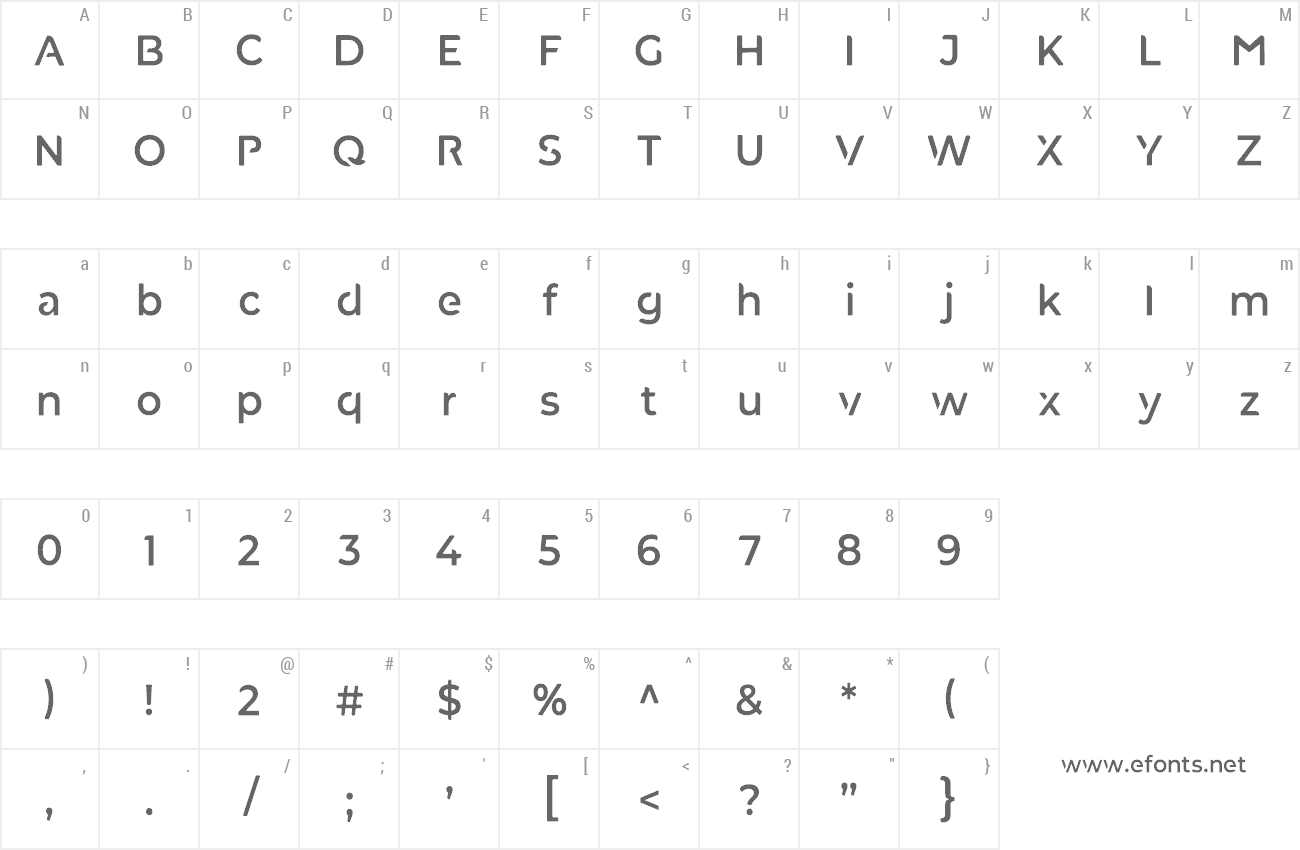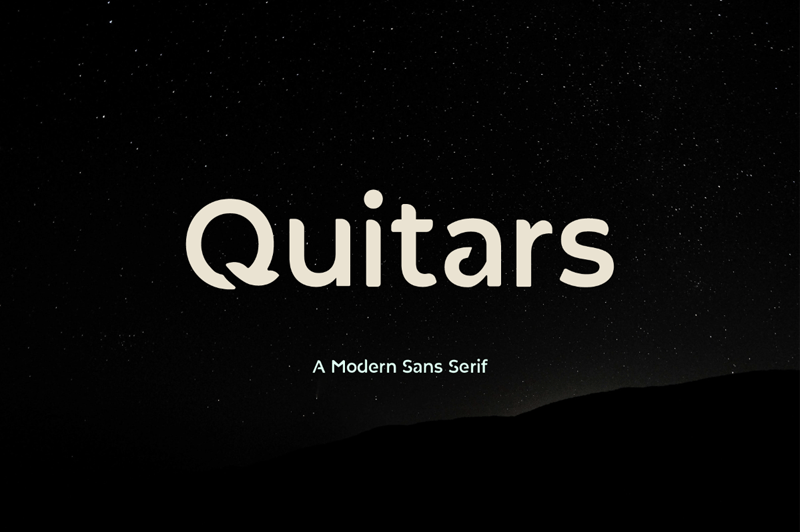
Preview and download Quitars Font. Created by Arliyan Creative in Basic Various styles with Free for personal use license.
Quitars is perfect for a modern look. It has a casual feel in an otherwise modern typeface and is perfect for adding personality to your designs. Creator Note : By installing or using this font, you are agree to the Product Usage Agreement: = This font is ONLY for PERSONAL USE. NO COMMERCIAL USE ALLOWED = For Corporate/Commercial license please visit https://www.behance.net/gallery/149841461/Quitars-Modern-Sans-Serif?tracking_source=project_owner_other_projects Follow our instagram for update : arliyancreative Thank you. |